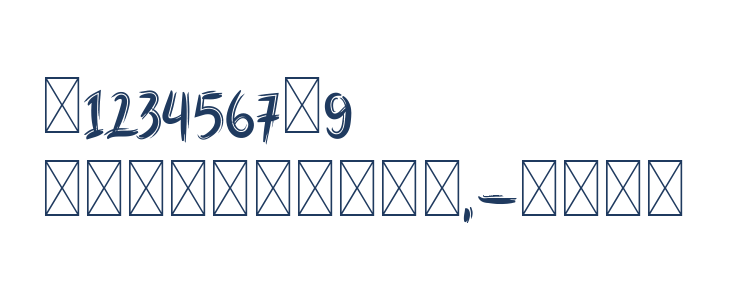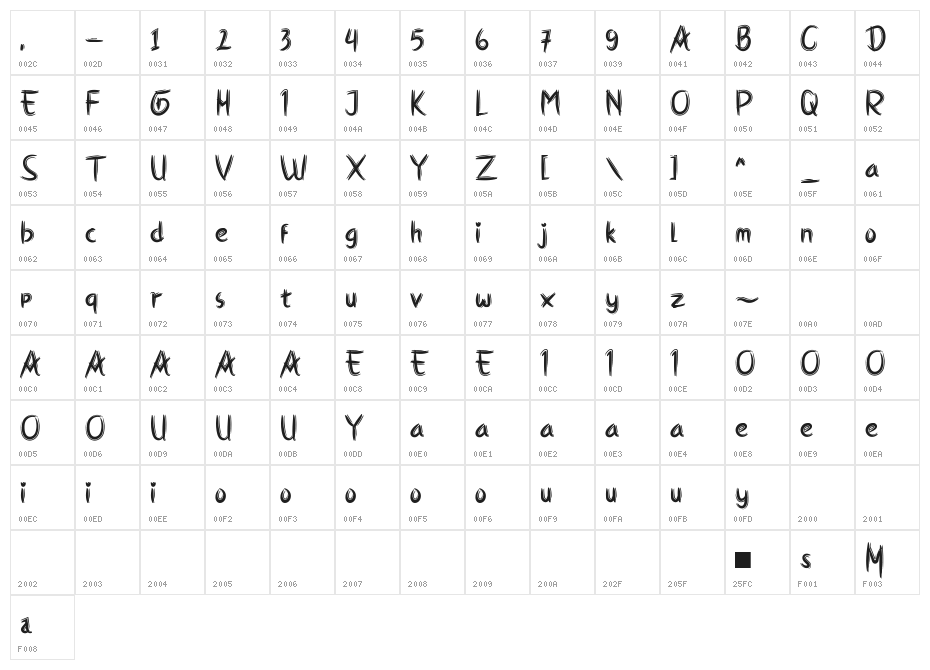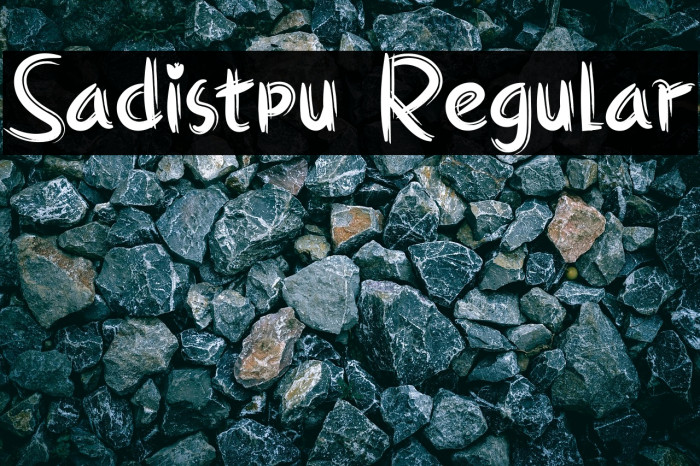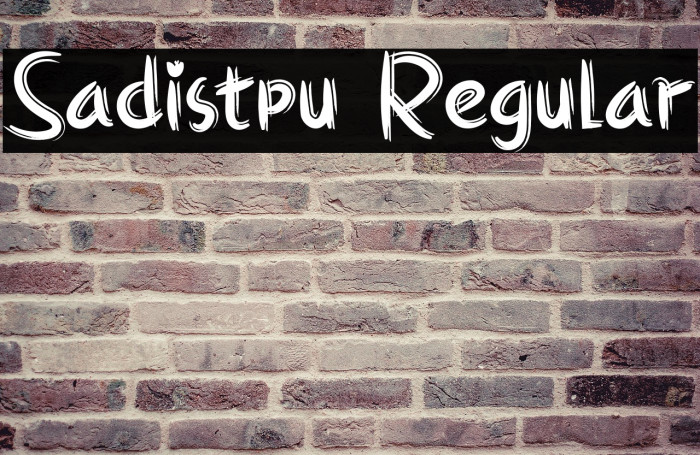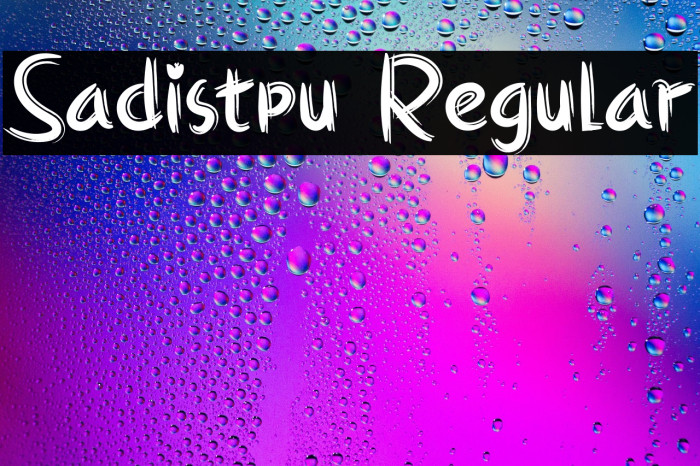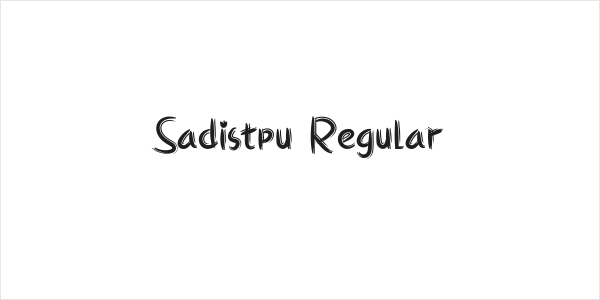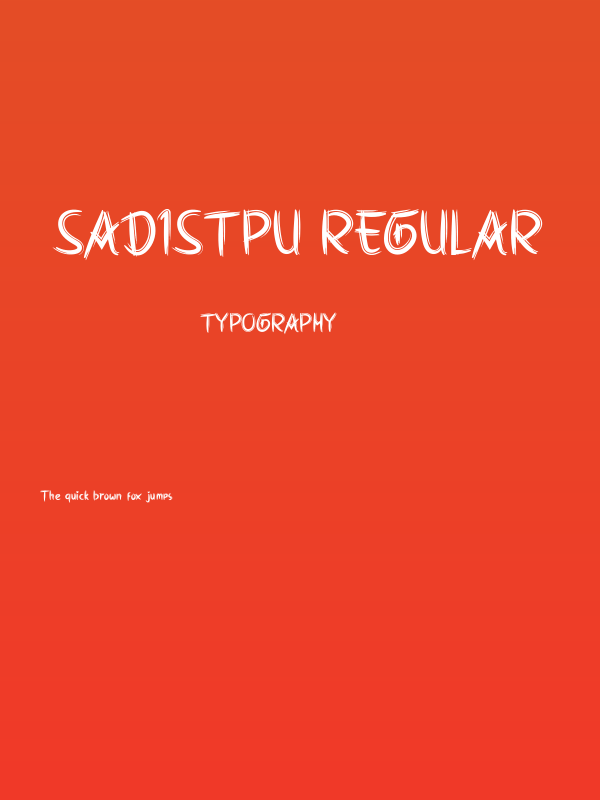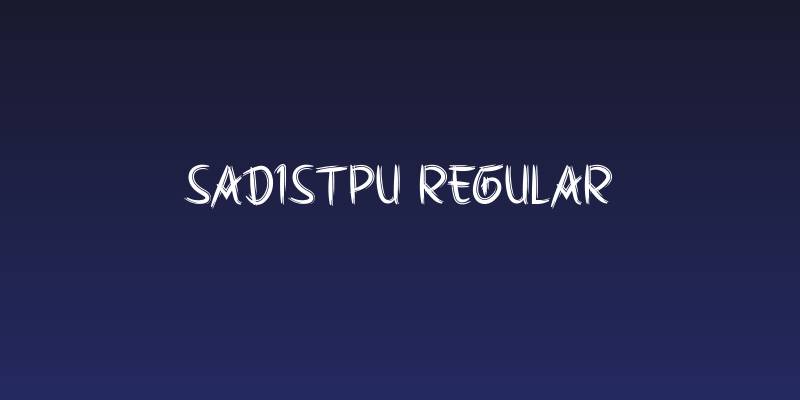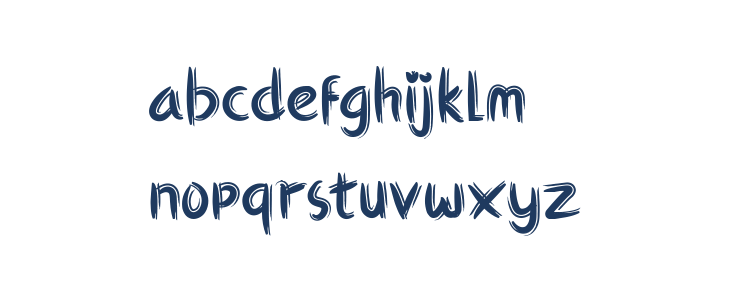
Sadistpu Regular Font
Sadistpu Regular Description
This font features a bold and edgy design with a hand-drawn appearance. The strokes are irregular and jagged, giving it a raw and expressive feel. The uppercase letters are tall and narrow, while the lowercase letters maintain a consistent height with a slightly wider form. The numbers follow the same stylistic approach, ensuring uniformity across all characters. This font's unique style is enhanced by its rough edges and dynamic lines, making it stand out in any design.
| Overall Style | Modern, Edgy |
| Proposed Projects | Ideal for album covers, posters, and edgy branding projects. |